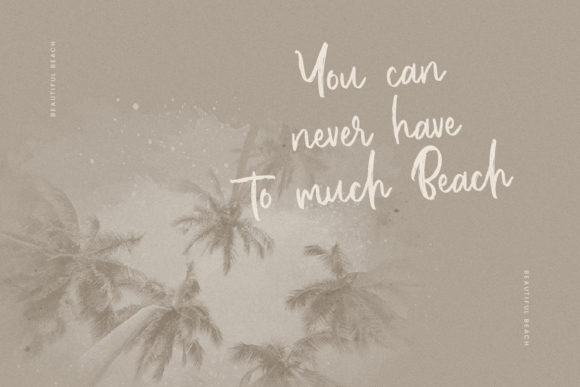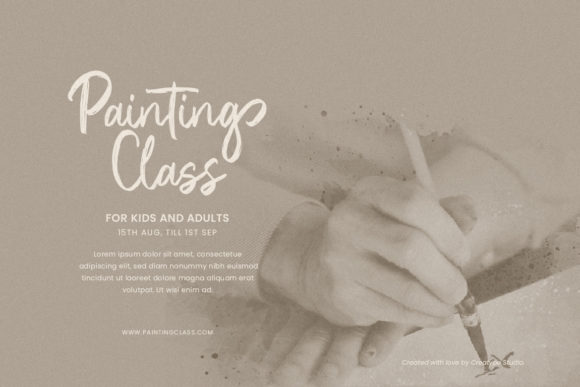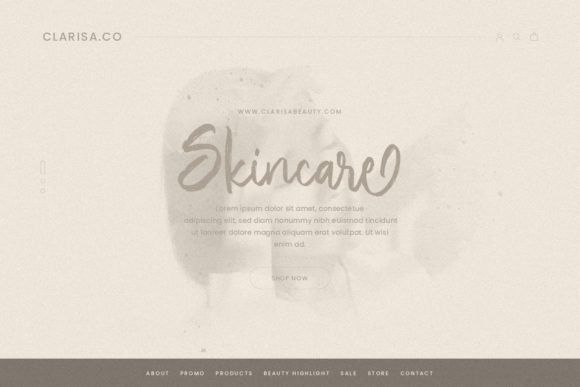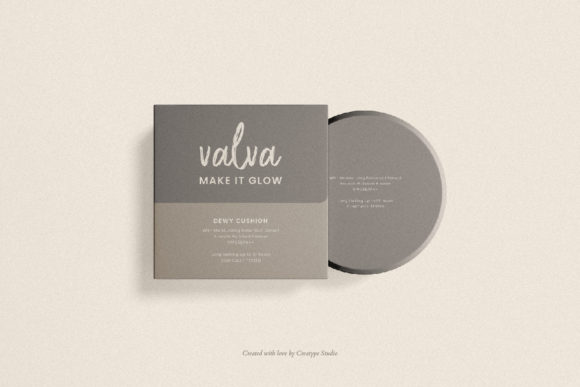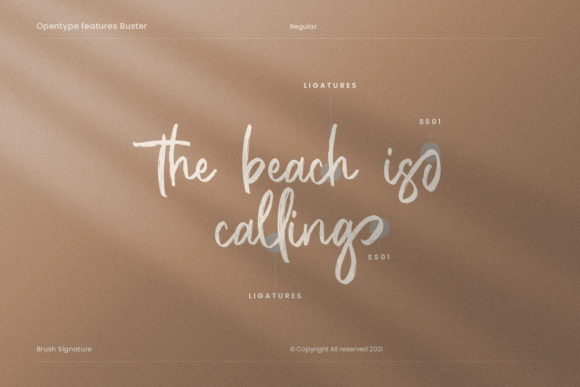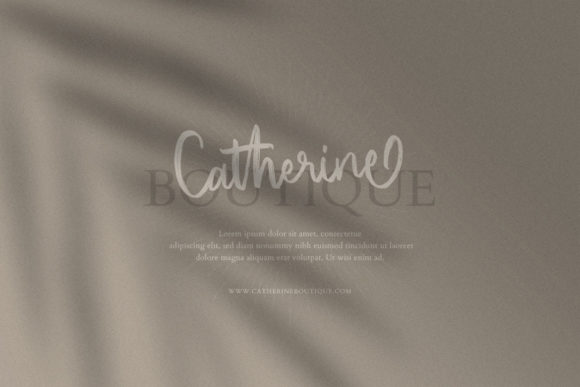
The Brush Stroke of Creativity
Imagine you’re working on a design project, and you need the perfect font to give it a touch of whimsy and charm. You’re browsing through your font library, and suddenly, you stumble upon a font that makes your heart skip a beat. Its playful characters dance along the baseline, and you can’t help but feel a sense of excitement and inspiration.
This is exactly what the Buster Brush Signature Font is all about – bringing a dash of personality and fun to your designs. As a lovely, brushed script font, it’s perfect for creating eye-catching headings, titles, and even entire brand identities. With its PUA encoding, you can easily access all the glyphs and swashes, giving you endless possibilities for creative expression.
Whether you’re a seasoned designer or just starting out, the Buster Brush Signature Font is a valuable addition to your toolkit. Its unique charm and playfulness make it a standout choice for any project that needs a little extra flair.
Buster Brush Signature Font Key Features
- Font Size: The font is available in 4 different sizes: 1, 2, 3, and 4, with varying line art and texture details.
- Unique Characteristics: The font features a distinctive, hand-drawn style with textured brushstrokes, giving it a personal and signature feel.
Buster Brush Signature Font Review
Overall, I think the Buster Brush Signature Font is a solid addition to any designer’s toolkit. ✨ One thing that really stands out is the unique character of the font. It has a certain charm and personality that’s perfect for creative projects or anything that needs a bit of whimsy. The designer has clearly put a lot of thought into the details, from the flourishes on the letters to the subtle texture that gives it a hand-drawn feel.
✨ The font is also very versatile, working well in a range of contexts from digital designs to print materials. I particularly like the way it looks in headings, where the bold lines and curves really make an impact.
- ⚠️ The font could benefit from a more comprehensive character set, including additional languages and special characters. This would make it more useful for international projects.
- ⚠️ I also noticed that the font can be a bit difficult to read at smaller sizes, where the lines and curves can get a bit lost.
Despite these limitations, I think the Buster Brush Signature Font is a great choice for designers looking for something a bit different. With a bit of tweaking and refinement, it has the potential to be a really special font.
To get the most out of Buster Brush Signature Font, use it for:
1. Handwritten-style invitations and cards.
2. Creative and artistic designs.
3. Personalized gifts and stationery.
Experiment with different font sizes and styles to achieve the desired look.
Alternatives to Buster Brush Signature Font
Great Vibes is a beautiful, cursive script font that is perfect for creating a warm and inviting atmosphere. It’s ideal for use in logos, invitations, and other design elements where a touch of elegance is needed.
Great Vibes is more elegant and sophisticated than Buster Brush Signature Font, making it a great choice for high-end designs. However, it may not be as playful or whimsical, so it’s best used for designs that require a more refined tone.
Alex Brush is a handwritten font that has a more rustic and casual feel than Buster Brush Signature Font. It’s perfect for use in designs where a personal and approachable tone is needed, such as in logos for small businesses or creative projects.
Alex Brush is more laid-back and casual than Buster Brush Signature Font, making it a great choice for designs that require a more relaxed atmosphere. However, it may not be as suitable for formal or professional designs.
Carolyna Pro is a modern, elegant script font that is perfect for creating a sophisticated and stylish atmosphere. It’s ideal for use in logos, business cards, and other design elements where a touch of luxury is needed.